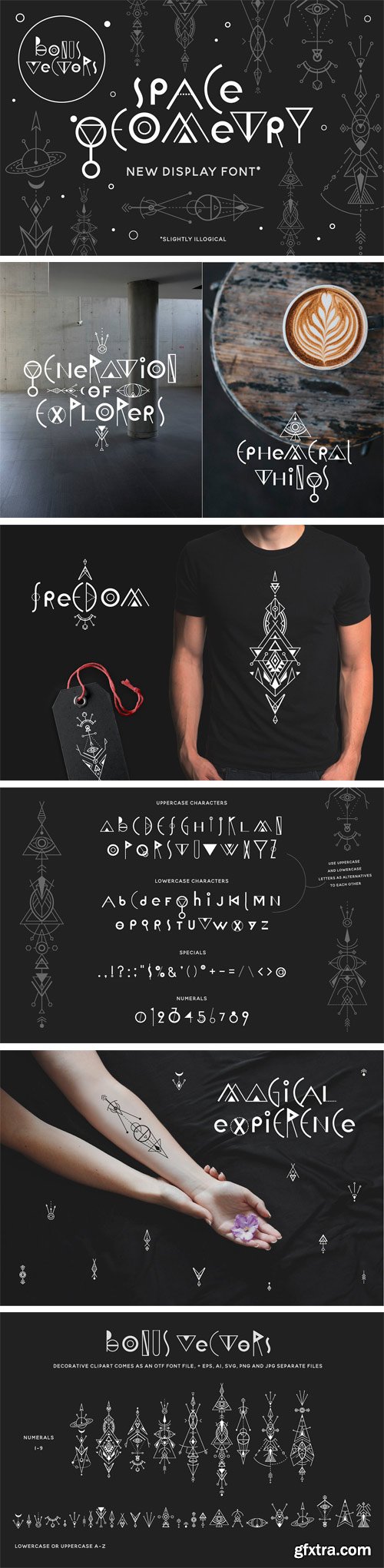
CM - Space Geometry Font + Vector Bonuses 2053461
This is a new display geometric font, and a lot of nice bonuses! You can use it to make logos, display letterings, packaging, posters, greeting cards, merchandize like t-shirts of mugs, and much more!